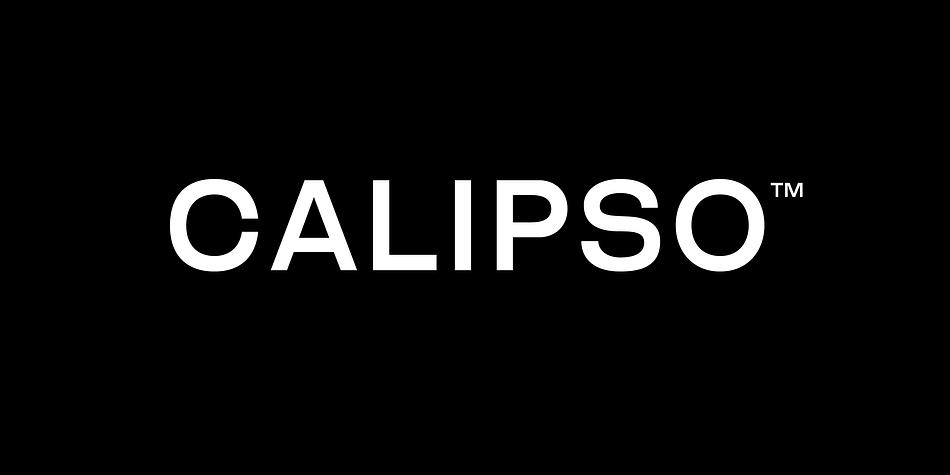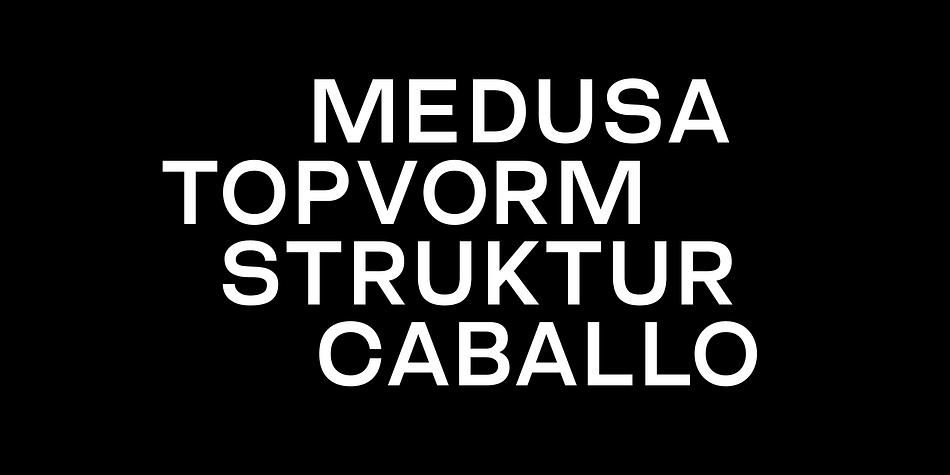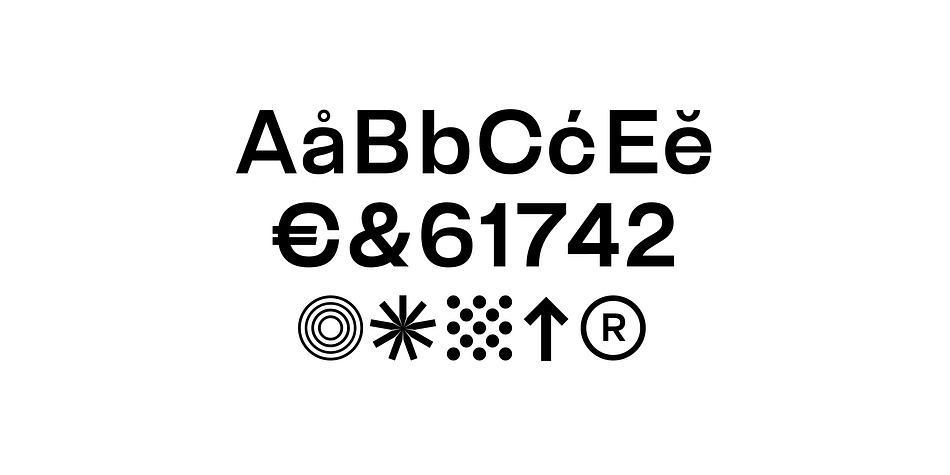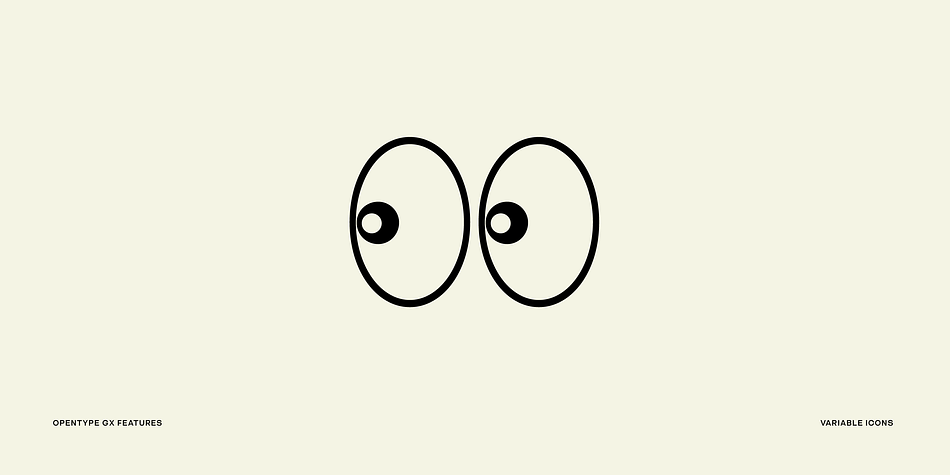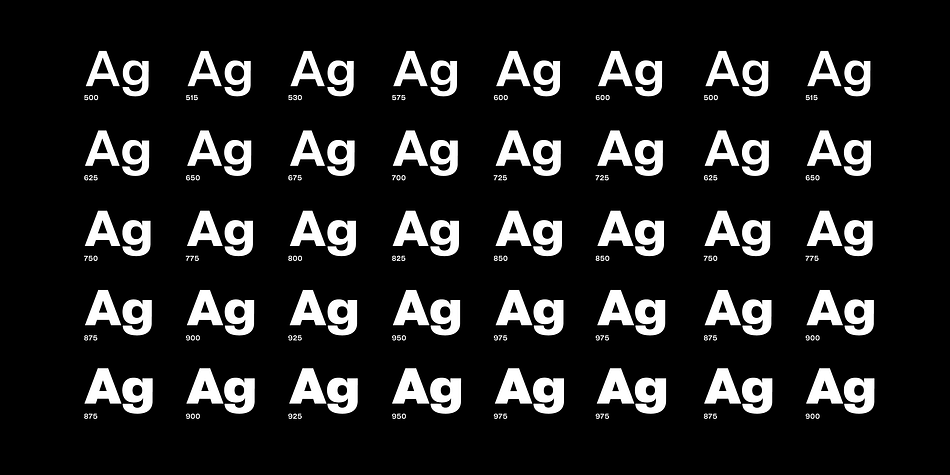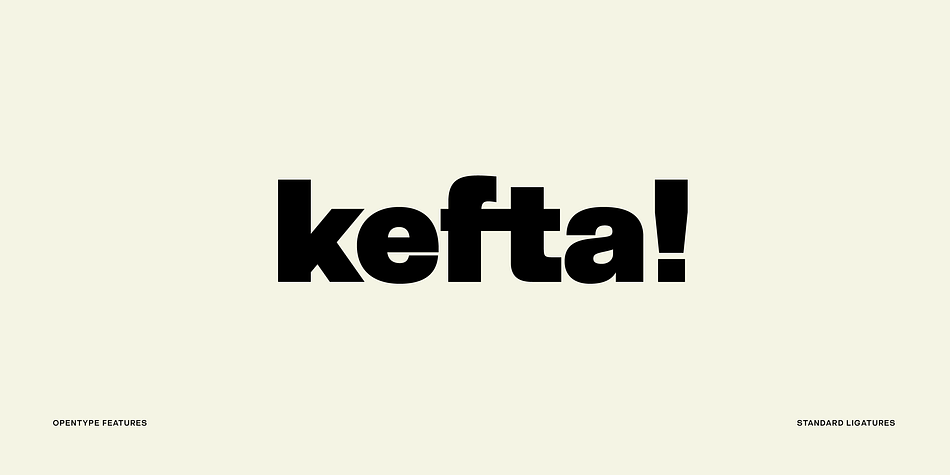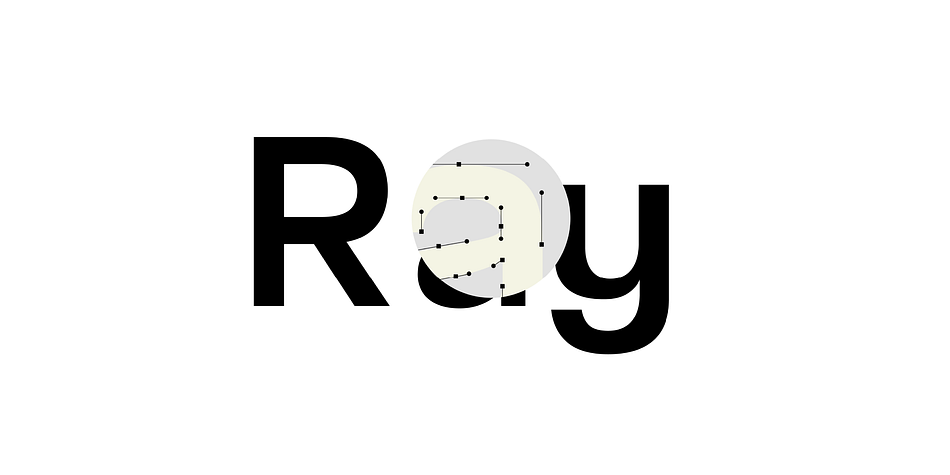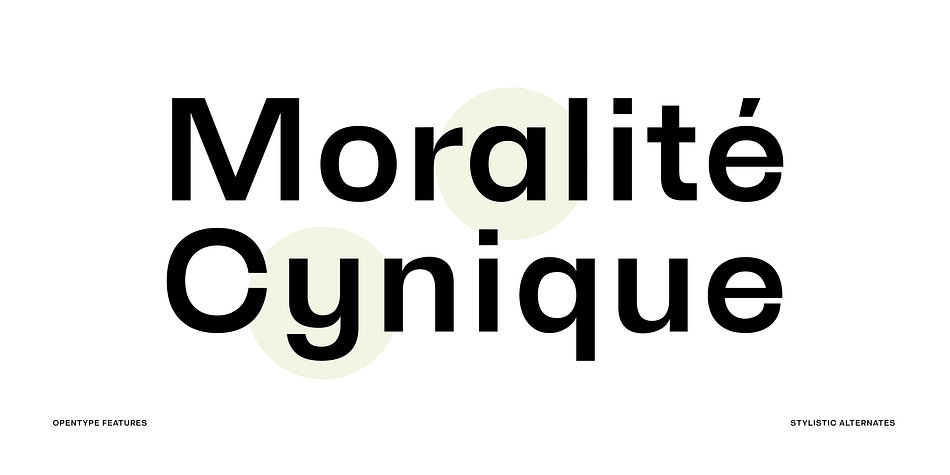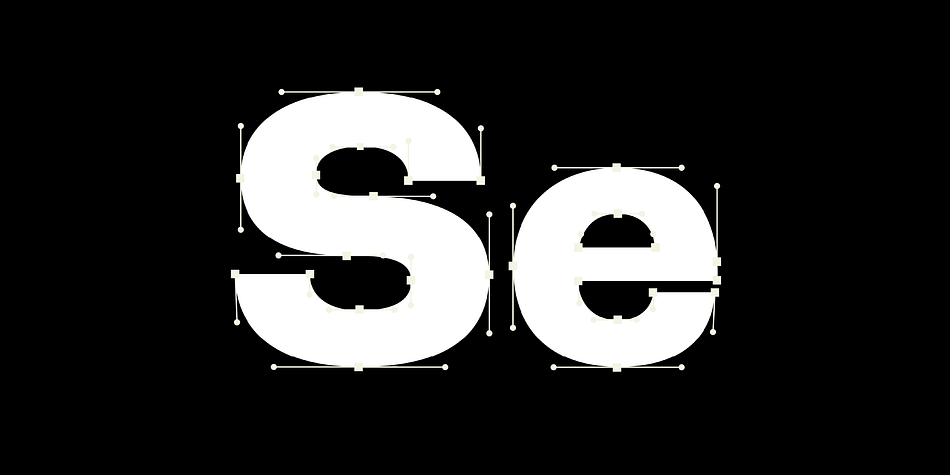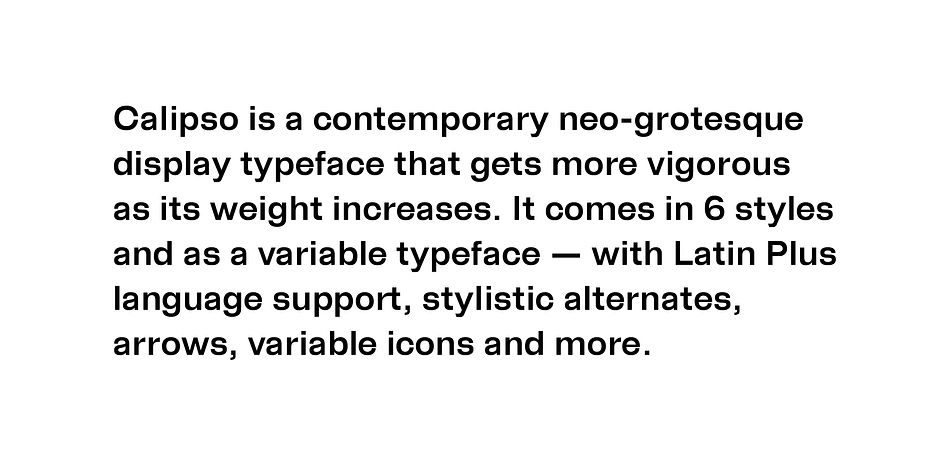
Designed by Nicolas Deslé, Calipso™ is a sans serif font family. This typeface has seven styles and was published by Nicolas Deslé.
Calipso™ is a contemporary neo-grotesque display typeface that gets more vigorous as its weight increases. It comes in 6 styles and as a variable typeface — with full Latin Plus language support.
● Stylistic Sets + Alternates
● Contextual Alternates
● Standard & Discretionary Ligatures
● Case-Sensitive Forms
● 495 Glyphs/Style
● Fractions
● Tabular Figures
● Icons & Arrows